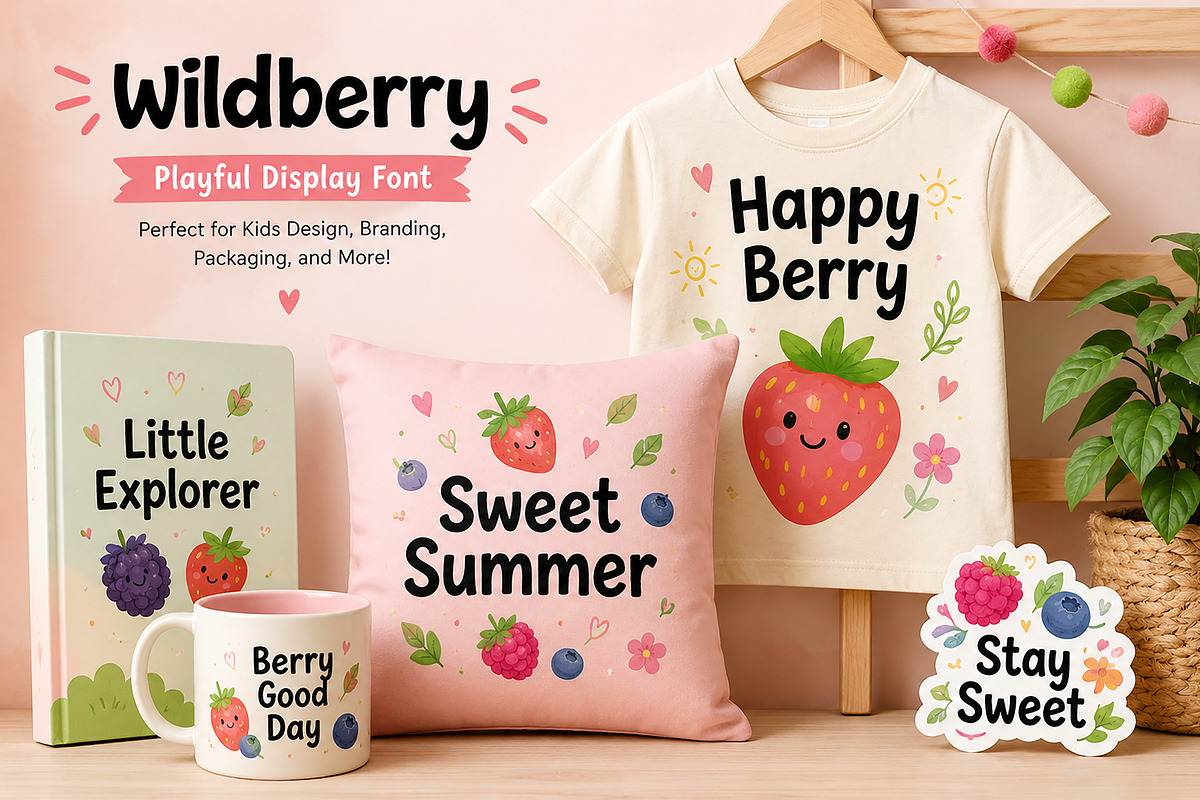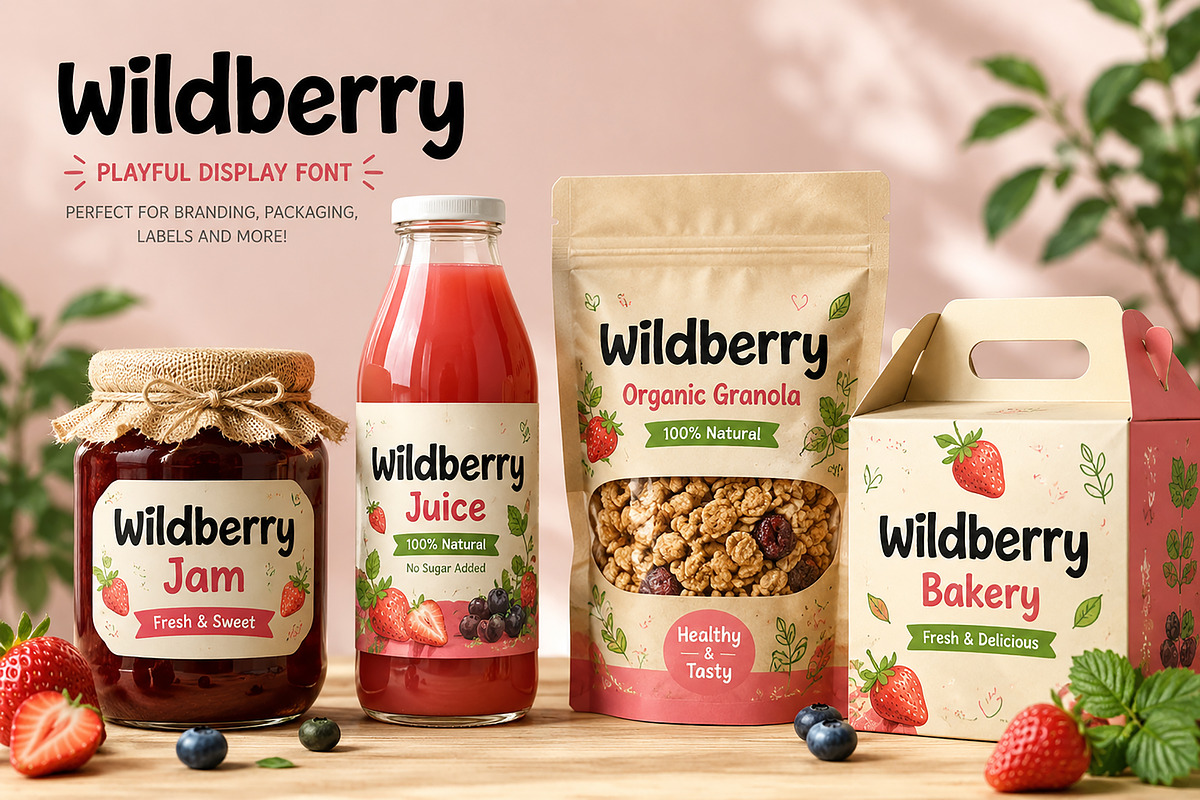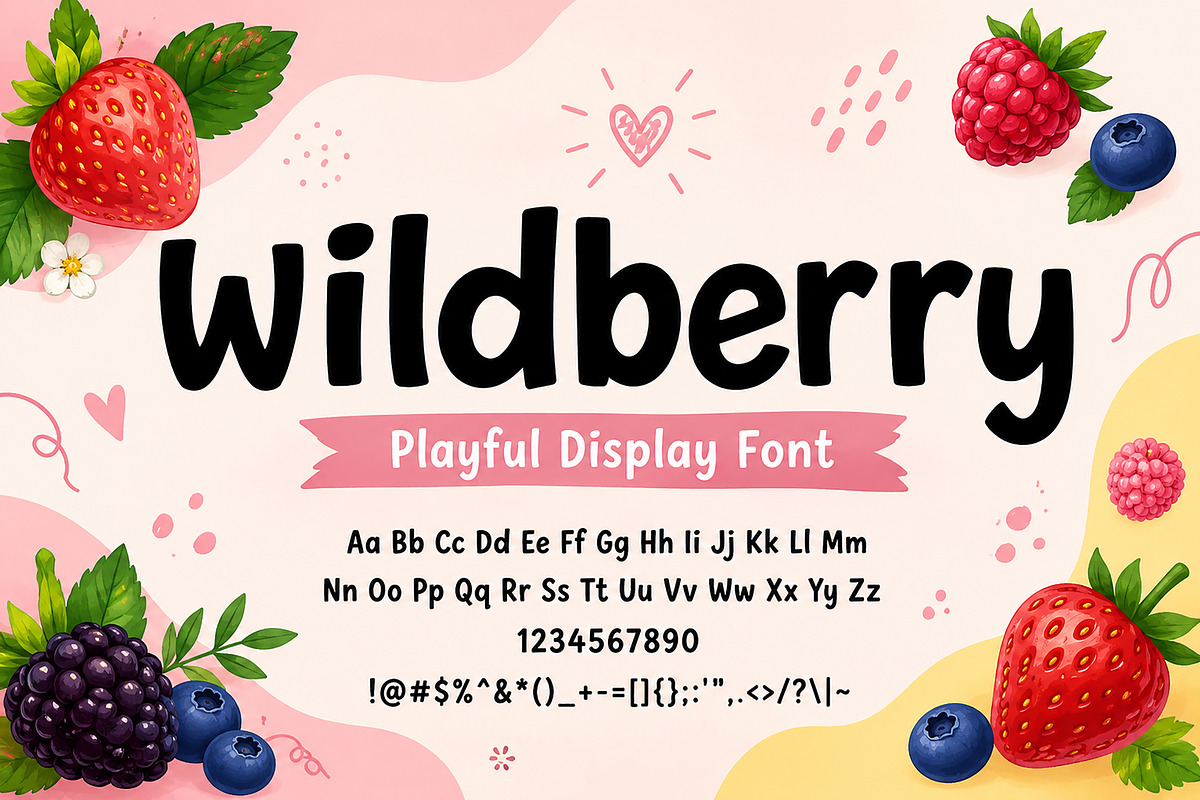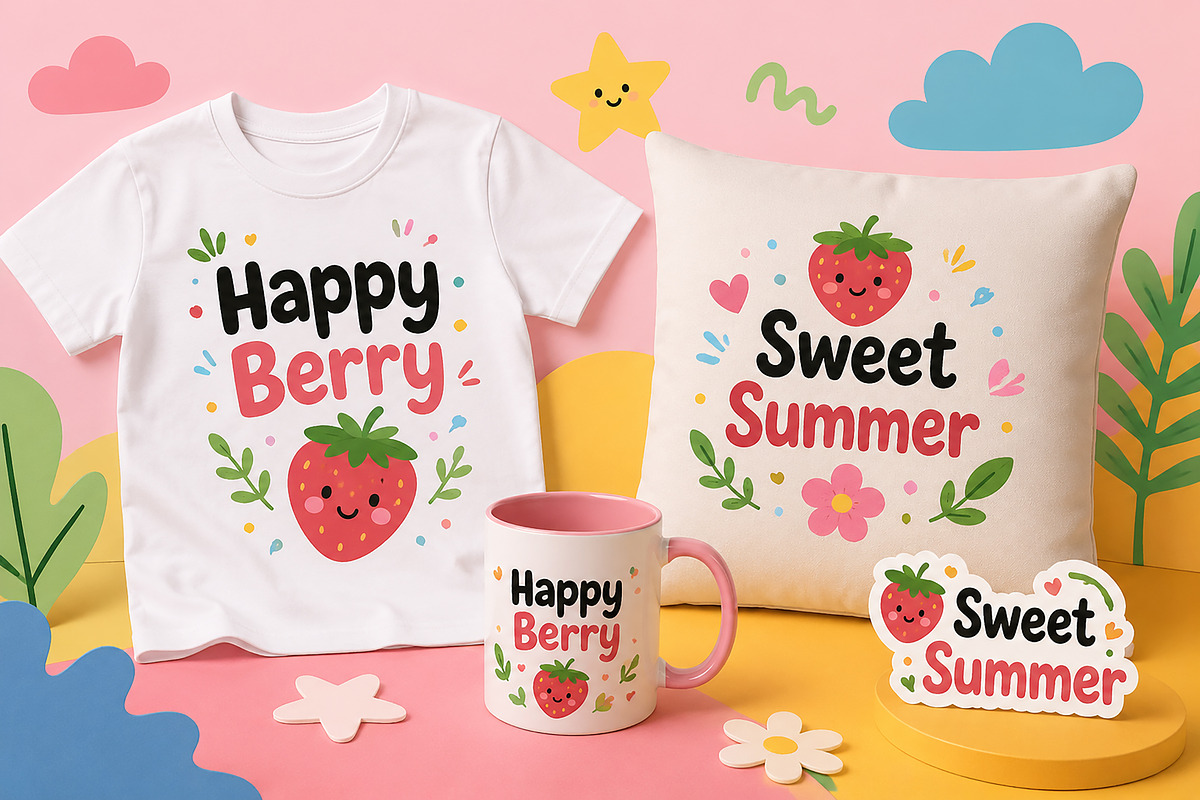
Wildberry
Wildberry – Playful Display Font
Wildberry is a fun, bold, and cheerful display font designed to bring joy and personality to your creative projects. With its smooth rounded edges, friendly letterforms, and playful character, Wildberry is perfect for children's products, branding, packaging, social media graphics, posters, book covers, stickers, t-shirts, mugs, and more.
Whether you're creating a cute logo, a colorful packaging design, or eye-catching social media content, Wildberry adds a sweet and charming touch that instantly stands out. Inspired by the playful spirit of berries and handmade lettering, this font is crafted to make your designs feel warm, approachable, and memorable.
• Children's Branding
• Kids Apparel & T-Shirts
• Product Packaging
• Food & Beverage Labels
• Social Media Posts
• Posters & Flyers
• Book Covers
• Stickers & Cricut Projects
• Greeting Cards
• Logos & Branding
• Quotes & Invitations
• Merchandise Design
Make your designs sweeter, friendlier, and more playful with Wildberry!